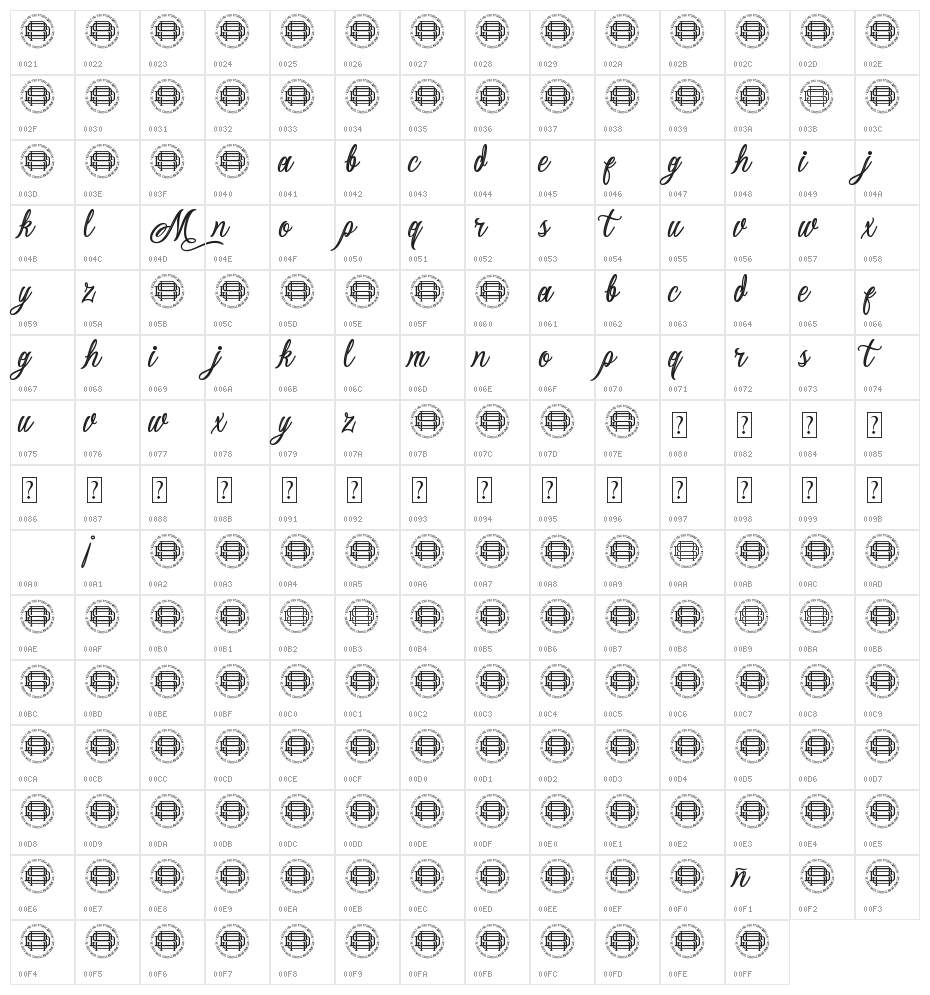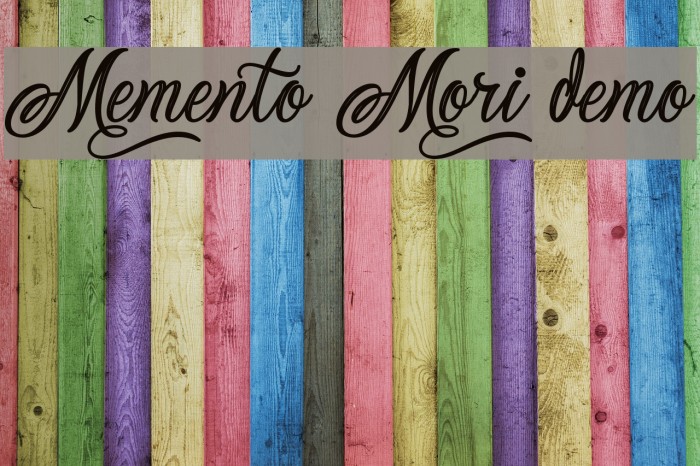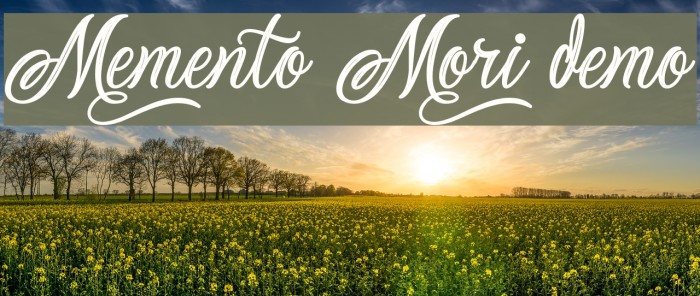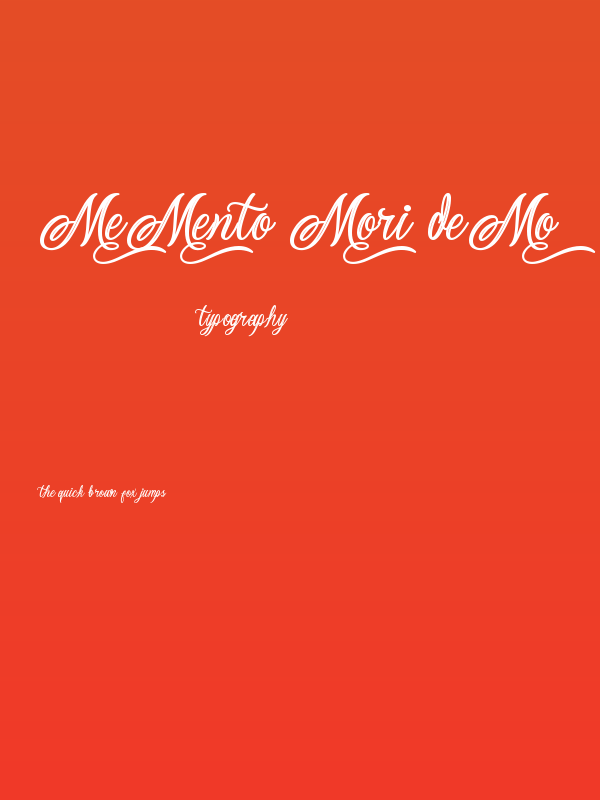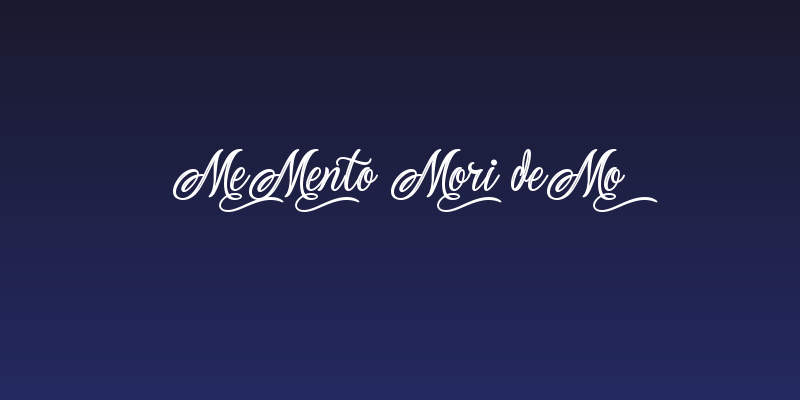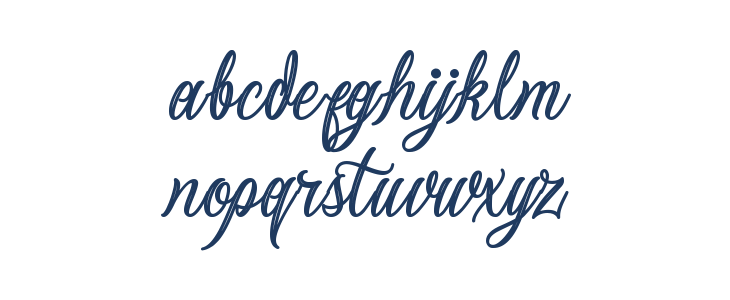
Memento Mori Demo Font
Memento Mori Demo Description
This font features an elegant, flowing script style with a handwritten appearance. The characters are interconnected with smooth, sweeping curves, giving it a sophisticated and artistic look. The uppercase letters are particularly ornate, with elaborate swashes and flourishes that add a touch of drama and elegance. The lowercase letters maintain a consistent style, with a slightly slanted orientation that enhances the fluidity of the text. This font is well-suited for projects that require a personal or artistic touch, such as invitations, greeting cards, or branding materials. The overall impression is one of grace and refinement, making it ideal for conveying a sense of luxury or creativity.
| Overall Style | Elegant, Artistic |
| Use Case | Invitations, Artistic projects, Branding |
| Proposed Projects | Ideal for wedding invitations, greeting cards, personal branding, and artistic projects. |